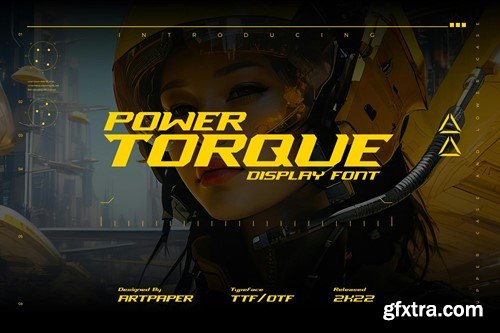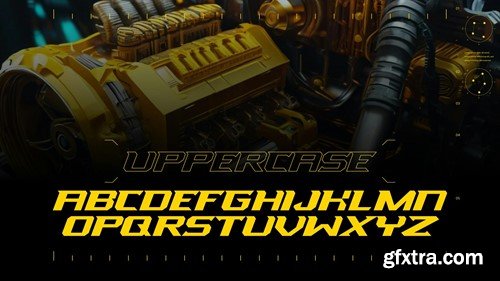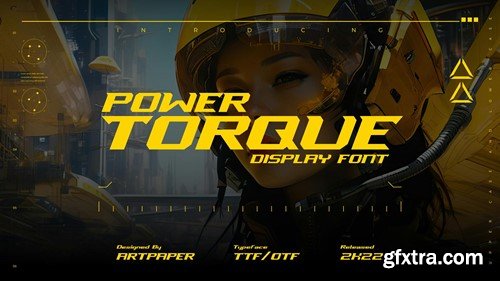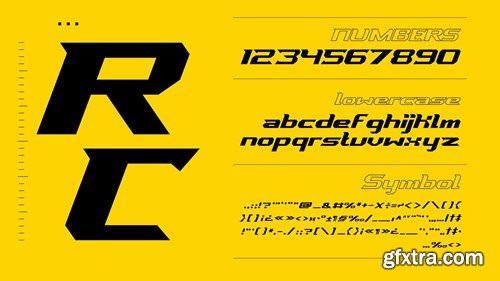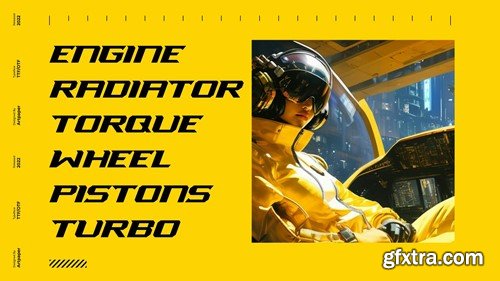
POWER TORQUE. Display Font AZ8DRCT
POWER TORQUE. Display Font
POWER TORQUE is unique Racing and Sport type font design. this font suitable for modern, game, racing, street themes, hypebeast, trendy, etc. use this font for your cool design project. What’s Included : – POWER TORQUE Display font (OTF/TTF/) – Web Font (WOFF) Works on PC / Mac, Simple installations Accessible in the Adobe Illustrator, Adobe Photoshop, Adobe InDesign, even work on Microsoft Word. Thank you for your purchase! Hope you enjoy with our font!